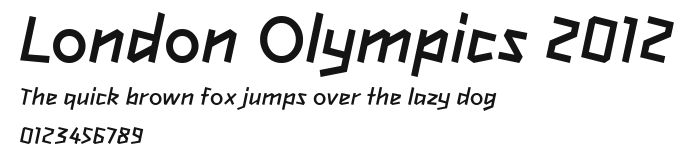
London Olympics 2012 Preview
About London Olympics 2012.ttf
London Olympics 2012.ttf is a modern, elegant sans-serif font designed for ultimate readability and visual harmony. Perfect for branding, headlines, web design, and print materials.